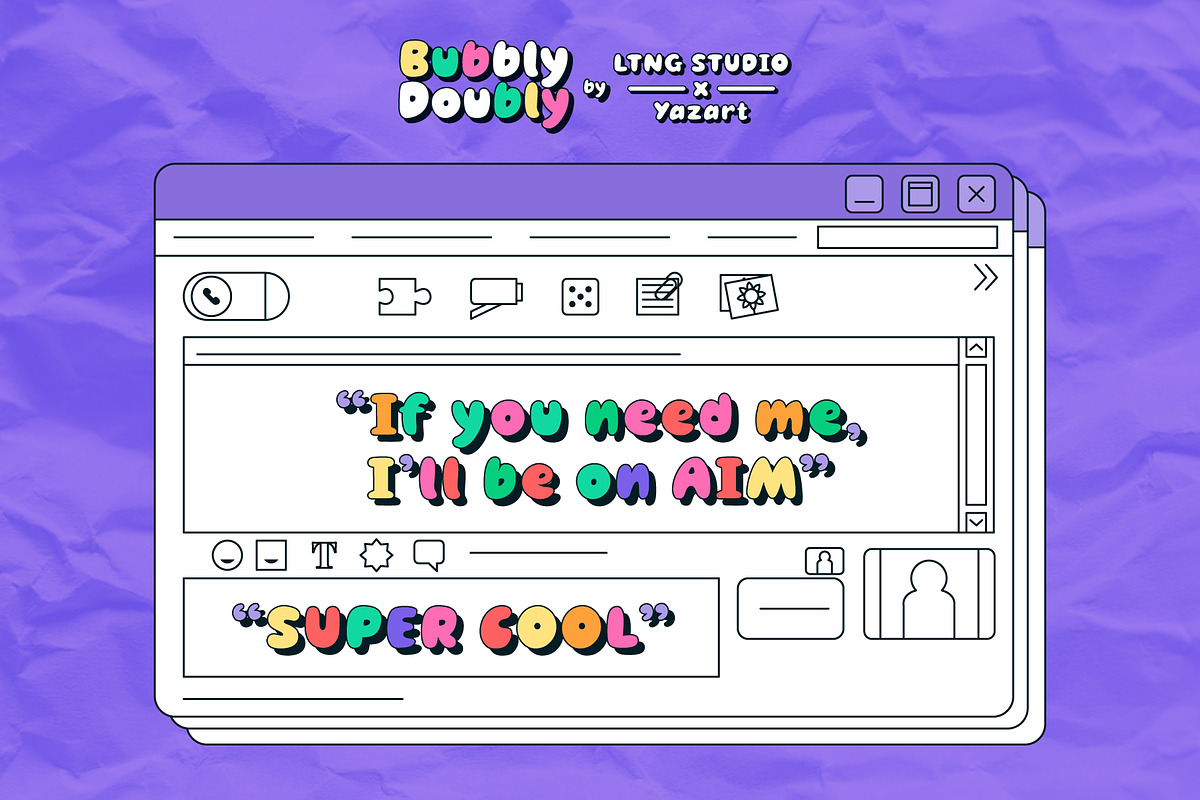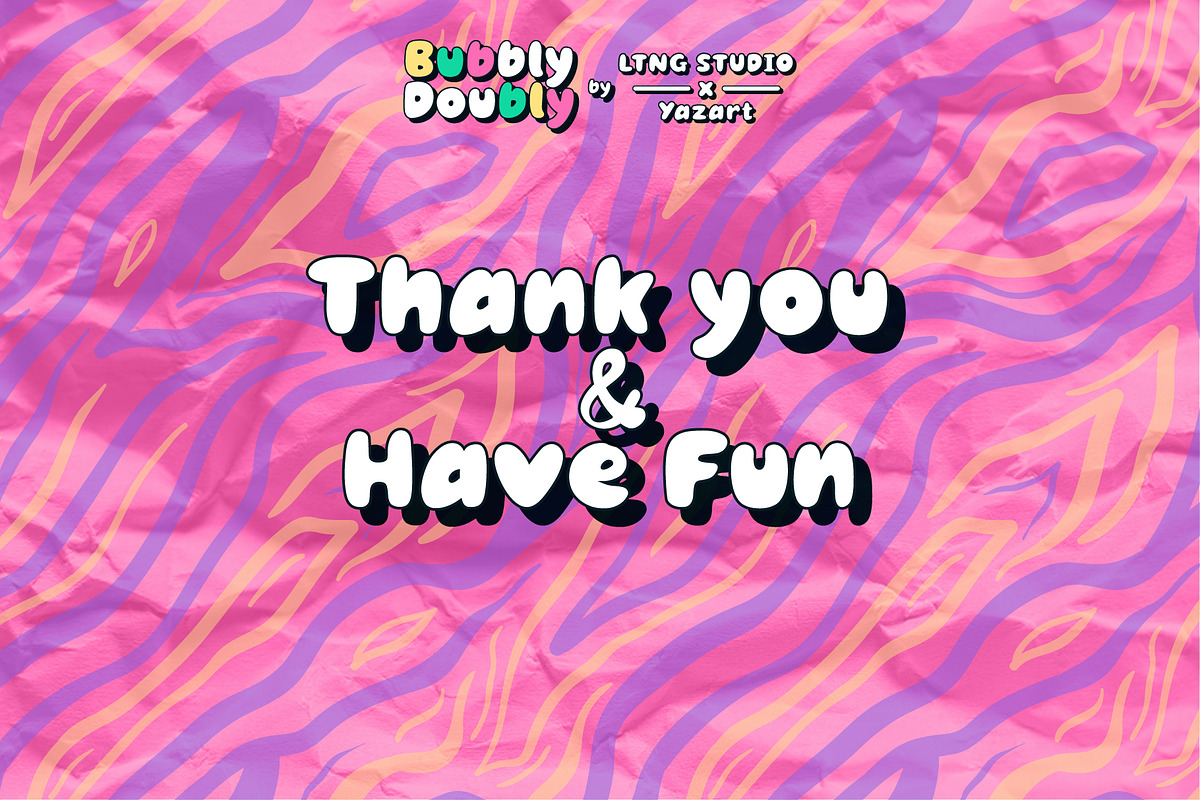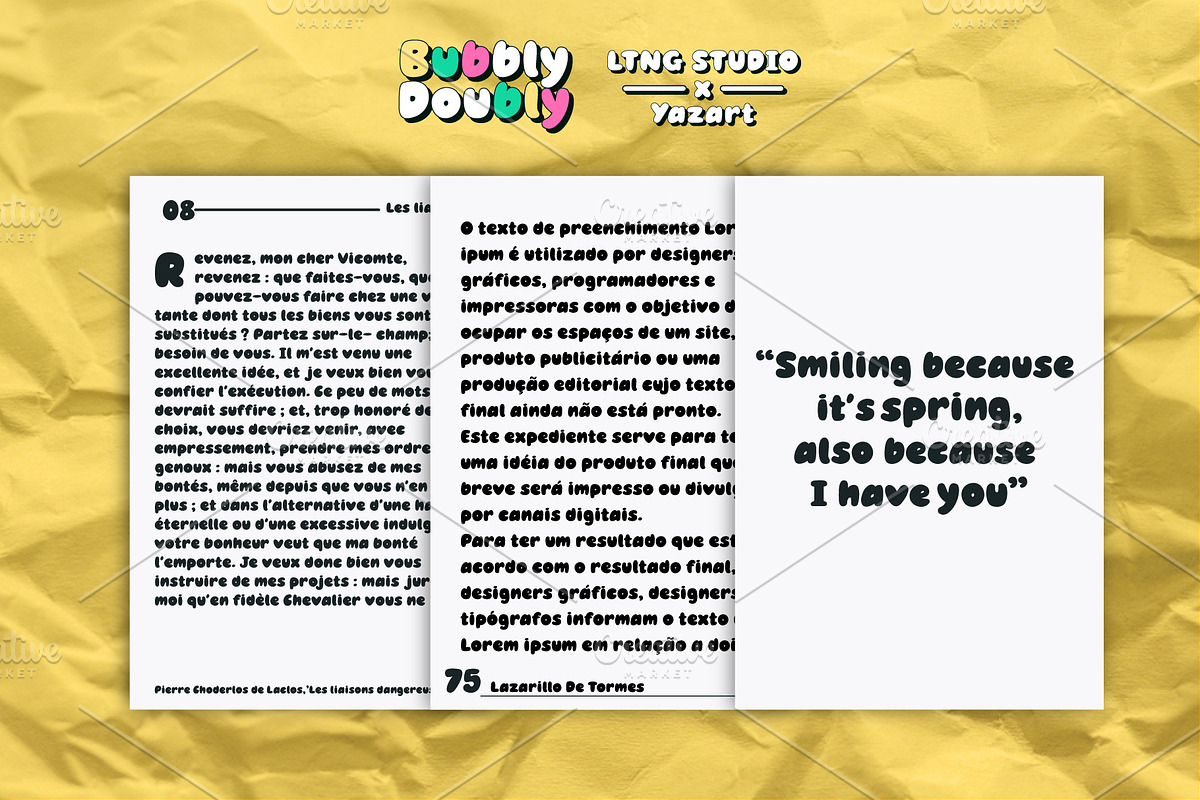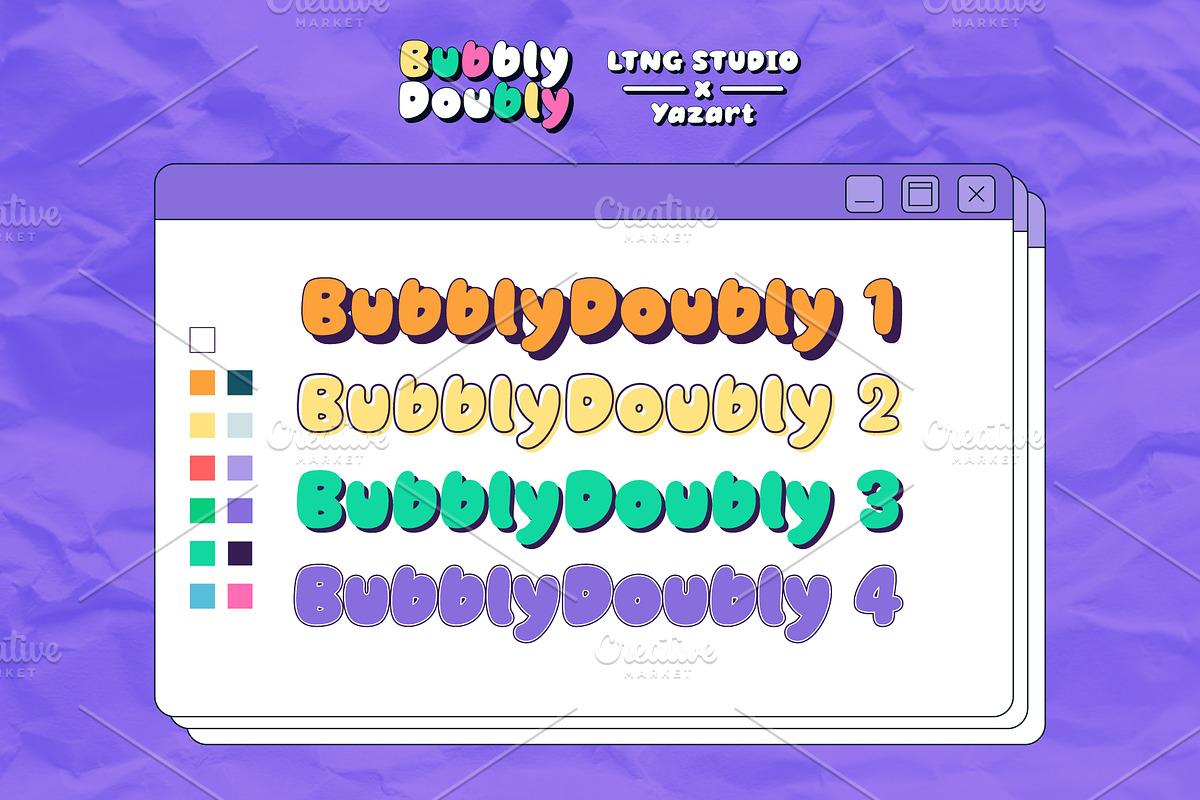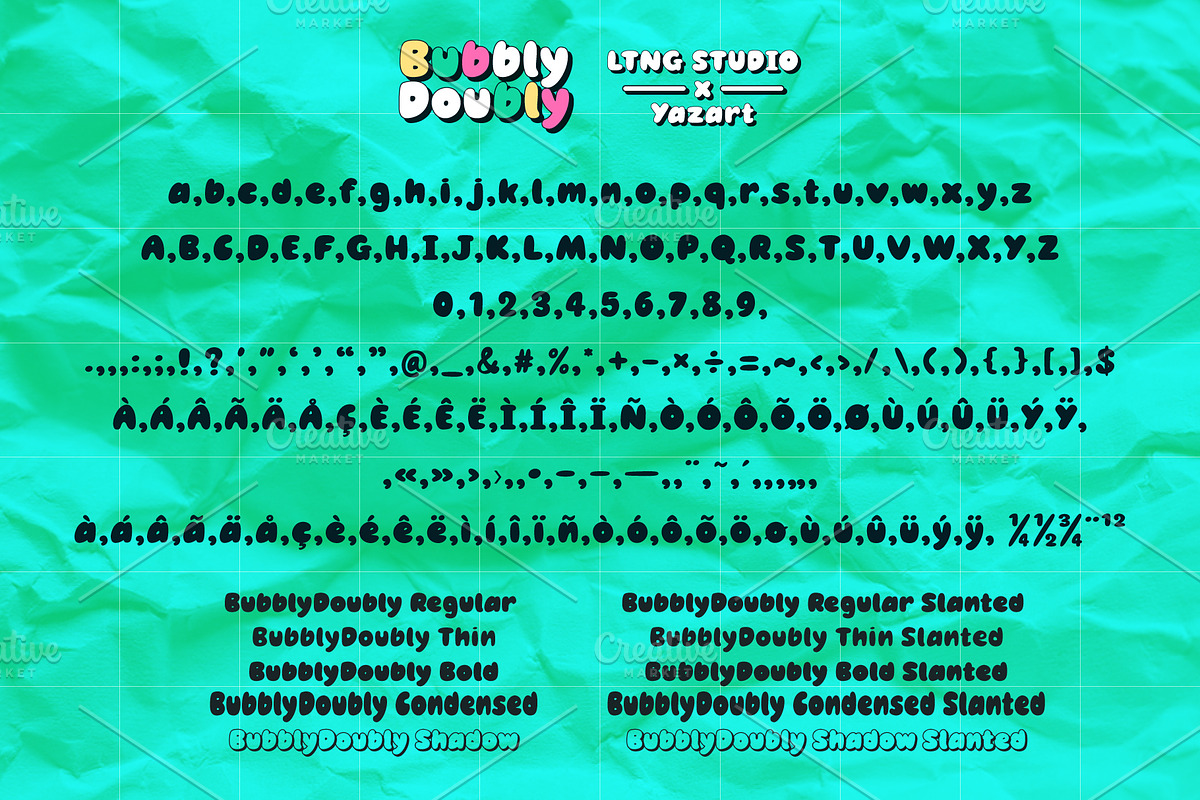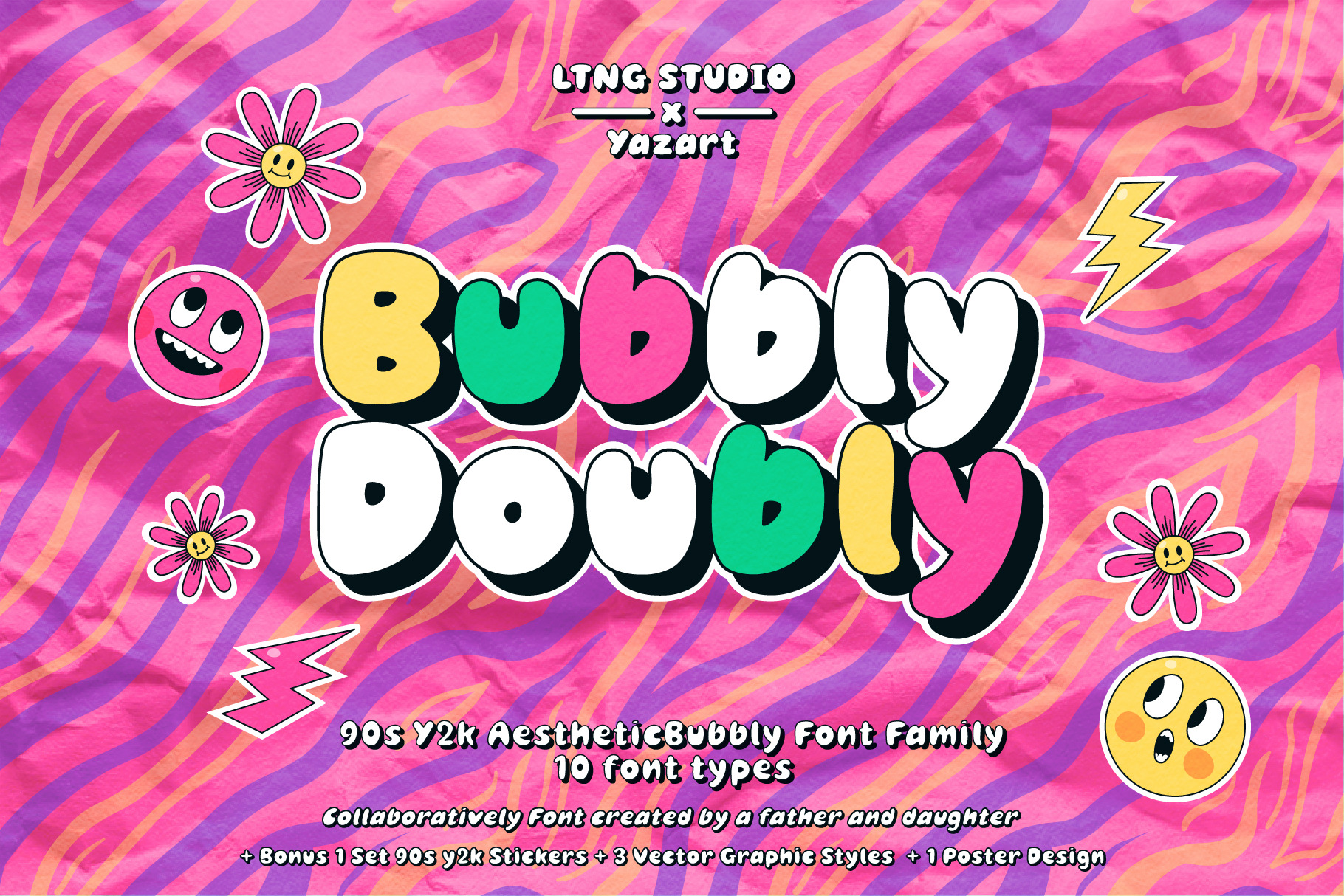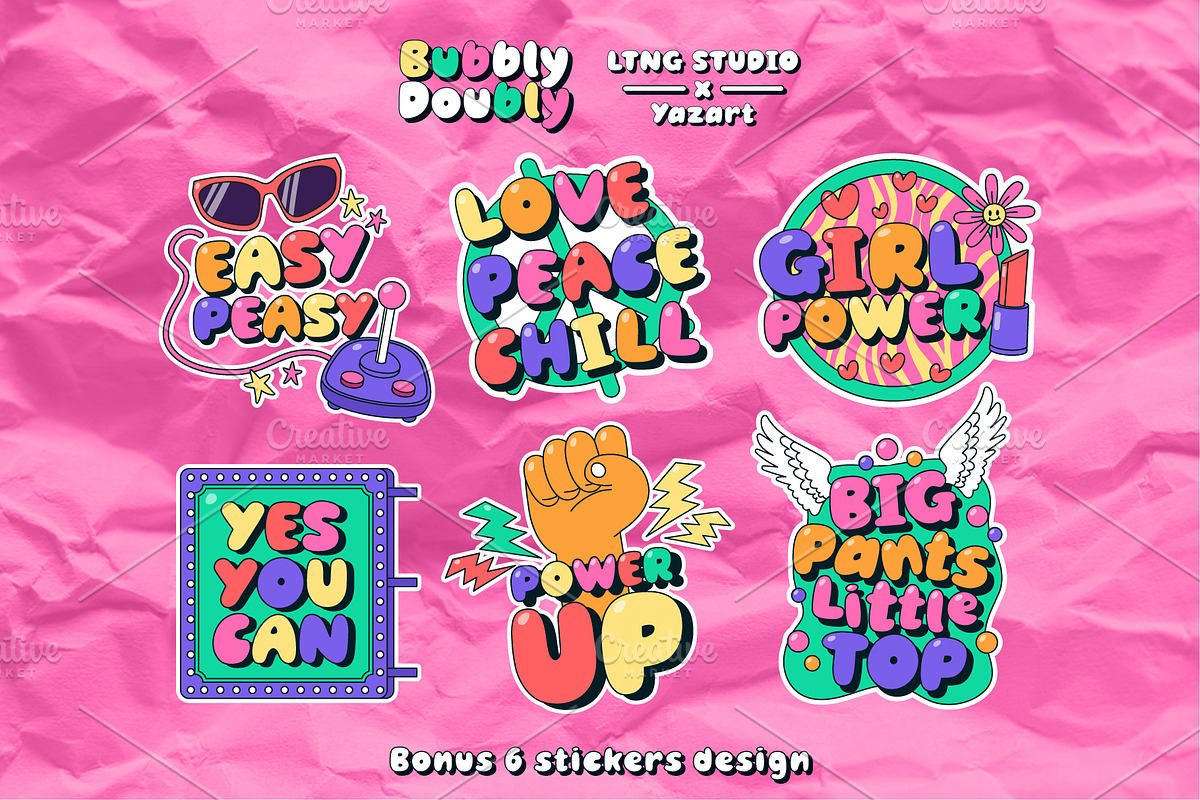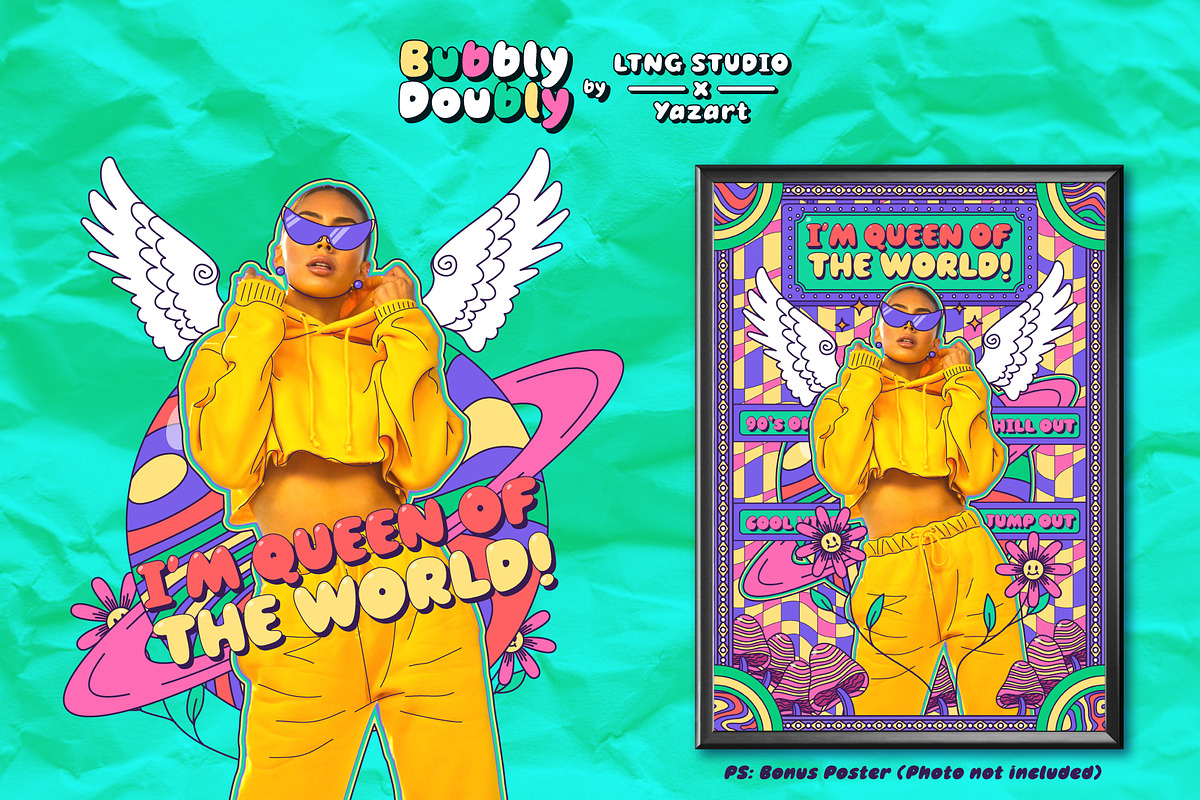
BubblyDoubly Font Family
Get ready to add a touch of nostalgia and whimsy to your creative projects with the bubbly and playful BubblyDoubly font family! This font is the collaboratively of a father and daughter duo who combined their love for the Y2k-90s aesthetic with a modern twist to create a font that exudes fun and quirkiness.
With its versatile design, BubblyDoubly can be used for a wide range of creative projects, from logos and branding to music projects, album covers, posters, cover artwork, events, y2k concepts, graffiti concepts, fashion, apparel, merchandise, children's books, comics, and so much more. And don't worry about language barriers -